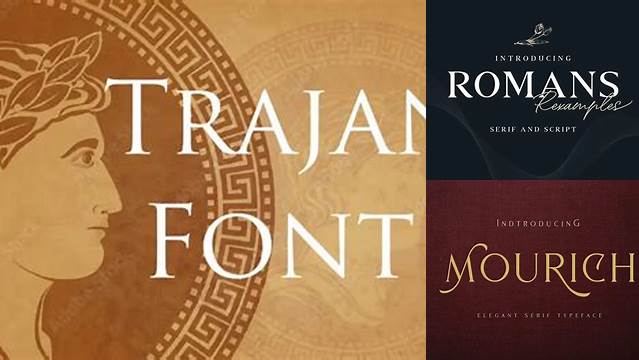
Trajan Font Alternatives: Free Options For Elegant Designs
Hey guys! Ever stumbled upon a font that just screams elegance and authority? For many designers, that font is Trajan. Designed by Carol Twombly in 1989 for Adobe, Trajan is an all-caps serif font inspired by the letterforms carved into the base of Trajan’s Column in Rome. Its classic, chiseled look makes it a go-to choice for everything from movie posters to high-end branding. But let's be real, Trajan isn't always the most accessible option, especially if you're working on a budget. So, what are the alternatives? That's where we come in! In this guide, we'll explore a treasure trove of free fonts that capture the essence of Trajan, ensuring you can achieve that timeless, authoritative feel without breaking the bank. Whether you're a seasoned designer or just starting out, this list will equip you with the knowledge to make informed choices and elevate your projects. We'll dive into the nuances of each font, highlighting what makes them similar to Trajan and where they stand out on their own. So, buckle up and let's embark on this typographic adventure!
What Makes Trajan, Trajan?
Before we dive into the alternatives, let's break down what makes Trajan so iconic. Understanding its core characteristics will help us identify the best free alternatives. Trajan is an all-caps serif font, meaning it's exclusively designed for uppercase letters and features those little decorative strokes (serifs) at the ends of the letterforms. The key elements that define Trajan include its strong Roman letterforms, its balanced proportions, and its overall sense of grandeur. The font exudes a sense of history and timelessness, making it perfect for projects that need to convey authority, sophistication, and class. Think movie posters, book covers, and luxury branding. But what specifically contributes to this iconic look? First off, the serifs themselves are a crucial element. Trajan's serifs are sharp and triangular, adding to the font's chiseled, monumental feel. The letterforms are also relatively wide, giving them a sense of stability and presence. Furthermore, the uniform stroke weight throughout the letters contributes to a clean and consistent appearance. Lastly, the all-caps design adds to Trajan's formality and impact. All these factors combine to create a font that's both visually striking and incredibly versatile. Knowing these characteristics, we can now explore free fonts that share these qualities, allowing you to capture the essence of Trajan in your designs without the hefty price tag. So, let’s get started!
1. Alternative Fonts with Roman Influence
When looking for free fonts similar to Trajan, focusing on those with a strong Roman influence is a great starting point. Fonts in this category often share the same classical roots as Trajan, drawing inspiration from ancient Roman inscriptions and architecture. This means you'll find similar letterforms, proportions, and overall aesthetic. These alternatives aim to replicate that sense of history and authority that Trajan is known for. Many free fonts capture the spirit of Trajan by emulating the inscriptional style of Roman lettering. This involves looking for fonts with sharp, triangular serifs, wide letterforms, and a balanced, symmetrical design. While these fonts may not be direct clones of Trajan, they capture the same essence, making them ideal for projects that require a touch of classical elegance. It's crucial to consider how the font will perform in different contexts. For example, a font that works well for a large headline might not be as legible in smaller body text. Therefore, it’s essential to test out different fonts and see how they look in your specific design. Ultimately, the goal is to find a font that not only captures the essence of Trajan but also works well within the overall visual hierarchy of your project. By exploring free fonts with Roman influence, you can find fantastic options that provide the same level of sophistication and impact as Trajan, without the cost.
2. Free Serif Fonts Inspired by Trajan
Serif fonts are the cornerstone of Trajan's style, so exploring free serif fonts is a must. These fonts feature the characteristic serifs—those small decorative strokes at the ends of the letterforms—that give Trajan its distinct look. But not all serifs are created equal! Some are sharp and angular, like Trajan's, while others are more rounded and delicate. When searching for free serif fonts inspired by Trajan, it’s essential to pay close attention to the shape and style of the serifs. Look for fonts with serifs that are sharp and triangular, as these will most closely resemble Trajan's chiseled appearance. Moreover, the overall proportions of the letters should also be considered. Trajan has a wide, stately look, so fonts with similar proportions will be better alternatives. Free serif fonts offer a vast landscape of options, from those that are almost direct copies of Trajan to those that offer a subtle nod to its style. Experimenting with different serif fonts is the key to finding the perfect fit for your project. Consider the weight and thickness of the strokes, the spacing between letters, and the overall readability of the font. A well-chosen serif font can bring a sense of sophistication and history to your designs, making it a valuable asset in your typographic toolkit. So, don’t shy away from exploring the wide world of free serif fonts; you might just discover your new favorite!
3. All-Caps Fonts Resembling Trajan
Trajan is famously an all-caps font, which adds to its sense of formality and grandeur. Therefore, when searching for free alternatives, exploring other all-caps fonts is a logical step. All-caps fonts can be incredibly impactful, lending a sense of authority and importance to your text. However, they can also be more challenging to use than mixed-case fonts, as all-caps text tends to be less readable in longer passages. When considering free all-caps fonts resembling Trajan, it’s important to strike a balance between visual impact and legibility. Look for fonts that maintain clear letterforms and adequate spacing between letters. This will ensure that your text remains readable, even in longer blocks. There's a certain undeniable power in all-caps typography, especially when you're aiming for a look that's both timeless and commanding. But remember, with great power comes great responsibility! Using all-caps effectively requires careful consideration of context and application. Think about the intended message and the audience you're trying to reach. All-caps can be perfect for headlines, titles, and short bursts of text, but it’s generally best to avoid using it for long paragraphs. By exploring the world of free all-caps fonts, you can add a touch of Trajan's elegance and authority to your designs, while also experimenting with the unique visual impact that all-caps typography can offer. Just remember to use this power wisely!
4. Fonts with a Similar Weight and Width to Trajan
The weight and width of a font play a crucial role in its overall appearance and impact. Trajan has a distinct weight and width that contribute to its strong, authoritative presence. Finding free fonts that share these characteristics is key to achieving a similar aesthetic. Font weight refers to the thickness of the strokes in the letterforms. Trajan has a medium-to-bold weight, giving it a substantial presence on the page. Font width, on the other hand, refers to how wide the letters are in relation to their height. Trajan has relatively wide letterforms, which adds to its sense of stability and grandeur. When searching for free fonts with a similar weight and width to Trajan, it’s helpful to use font identification tools or websites that allow you to filter fonts based on these characteristics. These resources can save you a lot of time and effort in your search. A font's weight and width can dramatically affect its readability and visual impact. A font that is too light may appear weak and insubstantial, while a font that is too heavy can be overwhelming. Similarly, narrow fonts can feel cramped and difficult to read, while overly wide fonts can look clunky. Therefore, finding a font with the right balance is crucial. By paying attention to the weight and width of free fonts, you can find excellent alternatives to Trajan that capture its commanding presence and timeless elegance. It’s all about finding the sweet spot that works best for your specific design needs. So, take the time to explore different options and discover the perfect fit!
5. Fonts Ideal for Headlines and Titles
Trajan is frequently used for headlines and titles due to its commanding presence and readability at larger sizes. Therefore, when seeking free alternatives, focusing on fonts that also excel in these applications is a smart move. Headlines and titles are the first point of contact for your audience, so they need to be attention-grabbing and easy to read. A font that works well in a headline might not be as effective in body text, and vice versa. When evaluating free fonts for headlines and titles, consider factors such as letter spacing, stroke contrast, and overall visual impact. Look for fonts that have a strong presence but aren’t overly decorative or distracting. A good headline font should be able to convey the essence of your message quickly and effectively. There’s a certain art to choosing the right font for a headline or title. It’s about more than just aesthetics; it’s about communication. The font should align with the tone and style of your content, and it should also be legible enough to grab the reader’s attention. Experimenting with different font combinations can also be beneficial. Pairing a Trajan-like font for your headline with a more readable serif or sans-serif font for your body text can create a visually appealing and balanced design. So, when searching for free fonts similar to Trajan, keep your focus on those that shine in headlines and titles. These fonts will help you make a strong first impression and effectively communicate your message.
6. Best Free Fonts for Posters
Posters demand fonts that are both eye-catching and legible from a distance. Trajan is a popular choice for posters due to its strong presence and historical feel. So, what are the best free alternatives for poster design? The key to a great poster font is its ability to grab attention. The font needs to be bold enough to stand out but also clear enough to be read quickly and easily. Factors such as letter size, spacing, and color contrast play significant roles in the overall impact of the poster. When selecting free fonts for posters, consider the context and the message you're trying to convey. A movie poster, for example, might call for a font that exudes drama and excitement, while a poster for a historical event might benefit from a more classical and authoritative typeface. There's an art to balancing creativity and practicality in poster design. You want a font that is visually appealing but also ensures your message is communicated effectively. Experiment with different fonts and font combinations to find the perfect fit for your design. Sometimes, a simple and clean font can be just as effective as a more elaborate one. By exploring free fonts that are ideal for posters, you can create stunning visuals that captivate your audience and communicate your message with clarity and style.
7. Free Fonts for Elegant Designs
Elegance in design often comes down to the subtle details, and the right font can make all the difference. Trajan is known for its elegant and sophisticated appeal, making it a go-to for designs that need a touch of class. Finding free fonts that evoke the same sense of elegance can elevate your projects without costing a fortune. Fonts that convey elegance often share certain characteristics, such as refined serifs, balanced proportions, and a sense of timelessness. They avoid being overly decorative or trendy, instead opting for a classic and sophisticated look. When searching for free fonts for elegant designs, consider the overall aesthetic you're aiming for. Are you creating a formal invitation, a high-end brand identity, or a luxurious website design? The font you choose should align with the tone and style of the project. There’s a certain magic to fonts that exude elegance. They have the power to transform a design from ordinary to extraordinary, adding a touch of sophistication and class. But elegance doesn't necessarily mean stuffy or formal. It can also be understated and subtle, conveying a sense of refinement without being ostentatious. By exploring free fonts that embody elegance, you can infuse your designs with a sense of timeless beauty and sophistication, creating visuals that are both captivating and refined. Remember, the key is to choose a font that complements your overall design and effectively communicates your message.
8. Fonts Similar to Trajan for Branding
Branding requires fonts that are not only visually appealing but also convey the personality and values of the brand. Trajan's authoritative and sophisticated look makes it a popular choice for branding projects. Finding free fonts that can serve a similar purpose is essential for businesses on a budget. A brand's font is a crucial element of its identity. It’s one of the first things people notice and can significantly impact their perception of the brand. Therefore, choosing a font that aligns with the brand's overall image and message is paramount. When looking for free fonts similar to Trajan for branding, consider the brand's target audience, its values, and its desired aesthetic. A brand that wants to convey trust and reliability might opt for a classic serif font, while a more modern and edgy brand might choose a sans-serif. There's an art to selecting fonts for branding. It’s about finding a typeface that not only looks good but also resonates with the brand's identity. The font should be legible, versatile, and memorable. Think about how the font will appear in different contexts, such as on a website, in print materials, and in social media graphics. By carefully exploring free fonts that capture the essence of Trajan's authority and elegance, you can create a brand identity that is both visually compelling and strategically aligned with your brand's goals. Remember, the right font can make a lasting impression and contribute significantly to your brand's success.
25. Free Fonts for Diplomas
26. Fonts for High-End Publications
27. Fonts for Gallery Posters
28. Fonts with a Strong Historical Context
29. Free Fonts for Professional Use
30. Fonts for Sophisticated Projects